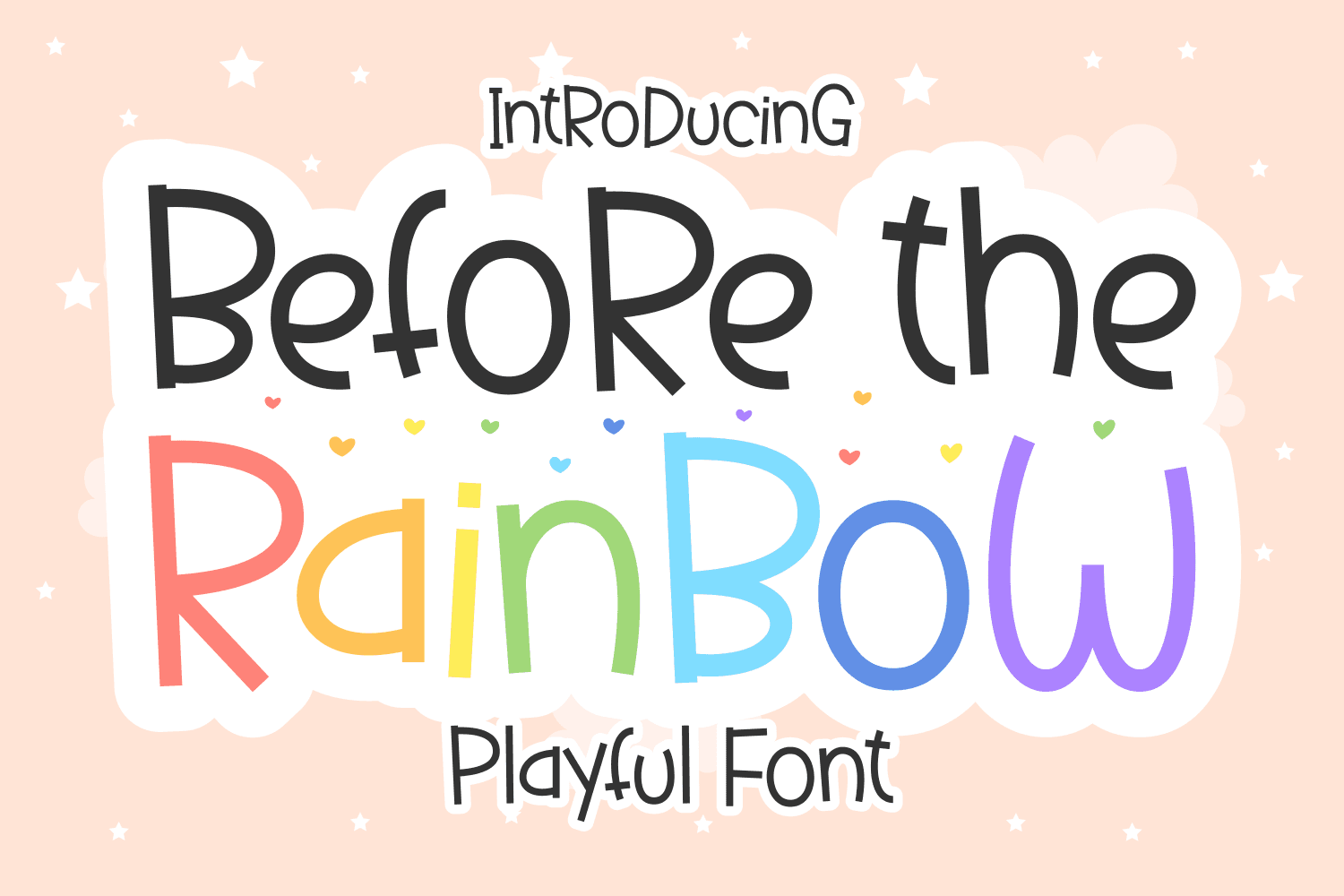
Exploring Before the Rainbow: A Playful Display Font for Vibrant Designs
When it comes to crafting eye-catching designs that resonate with a youthful spirit, the Before the Rainbow font stands out as a delightful option in the realm of display fonts....